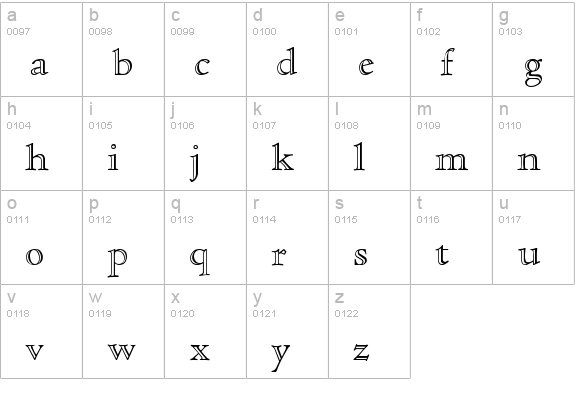
Casket OpenFace Font Details
Casket OpenFace is a unique and eye-catching font that effortlessly combines elegance with a touch of vintage charm. With its open and airy design, this font is perfect for adding a touch of sophistication to your projects. The clean lines and intricate details of Casket OpenFace make it a versatile choice for a wide range of design applications, from branding to invitations and everything in between. Best of all, Casket OpenFace is available for free download at FontsMarket.com. This means you can easily access this beautiful font and use it in your projects without any cost. Whether you're a seasoned designer looking to add a new font to your collection or a beginner searching for the perfect typeface, Casket OpenFace is sure to impress with its timeless appeal and effortless style. Download it today and elevate your designs with this stunning font.